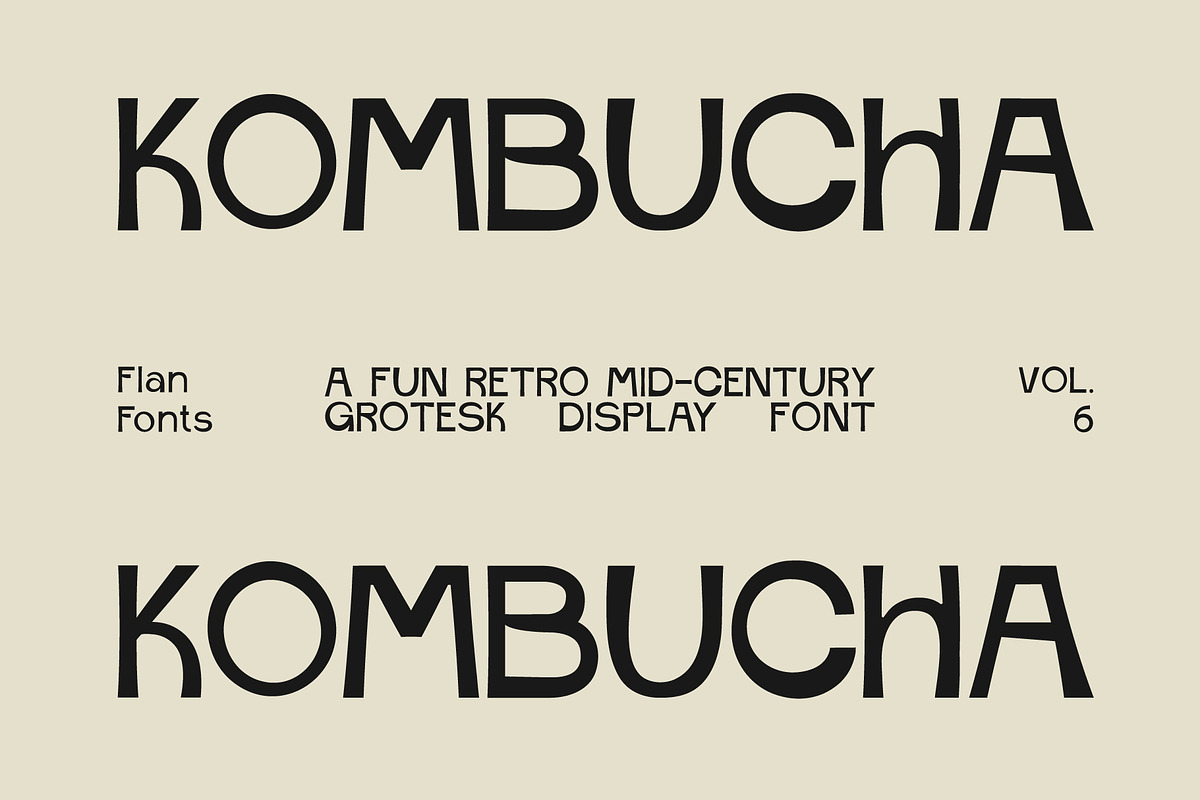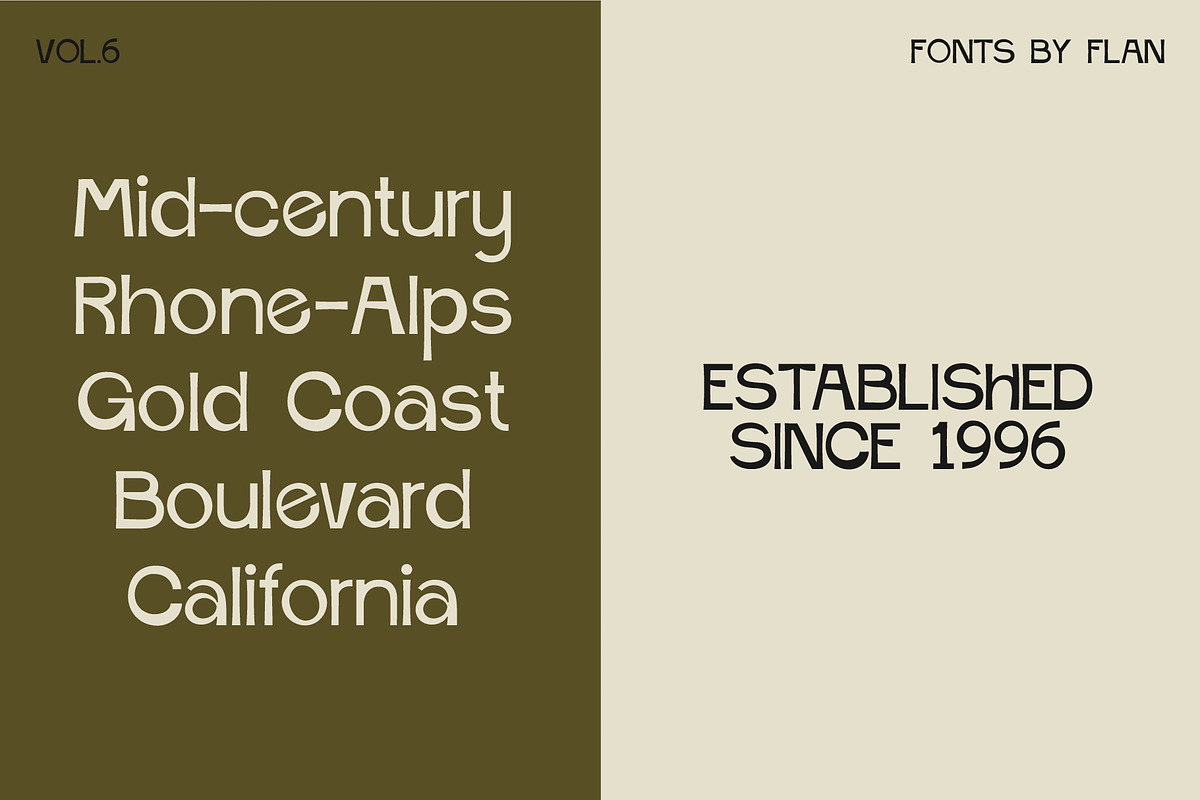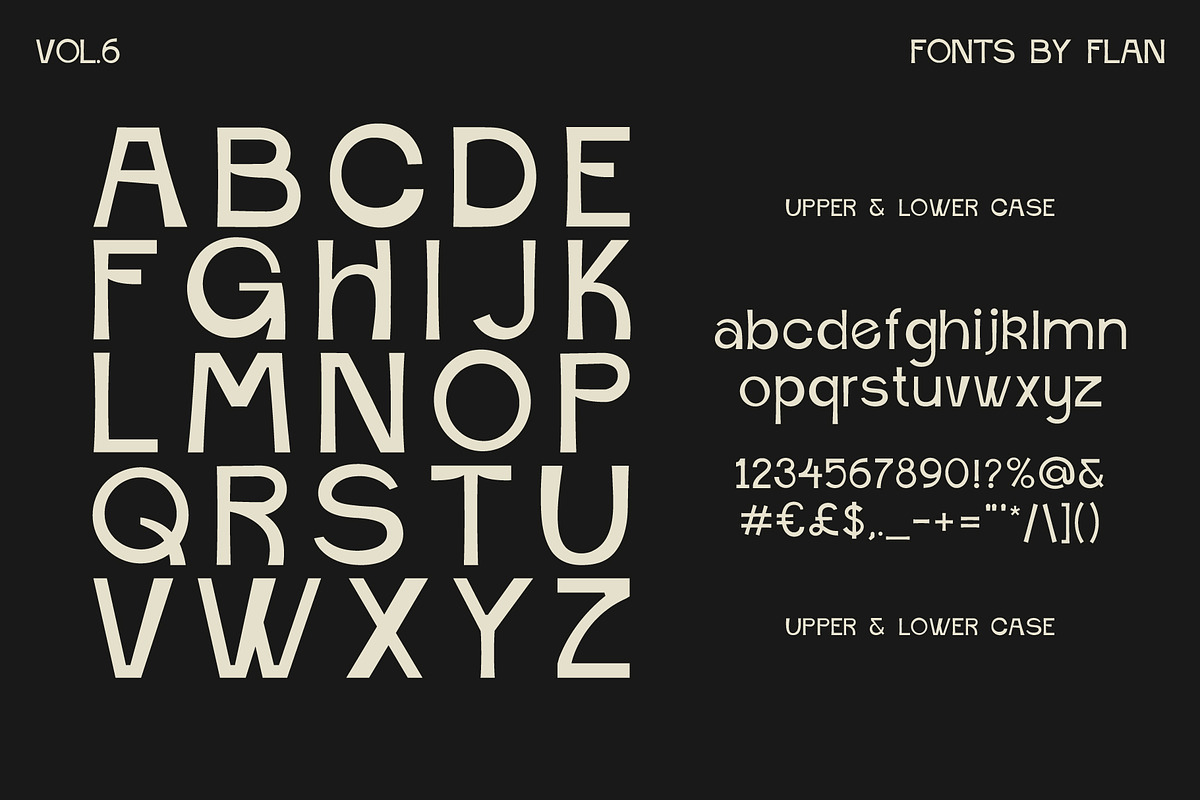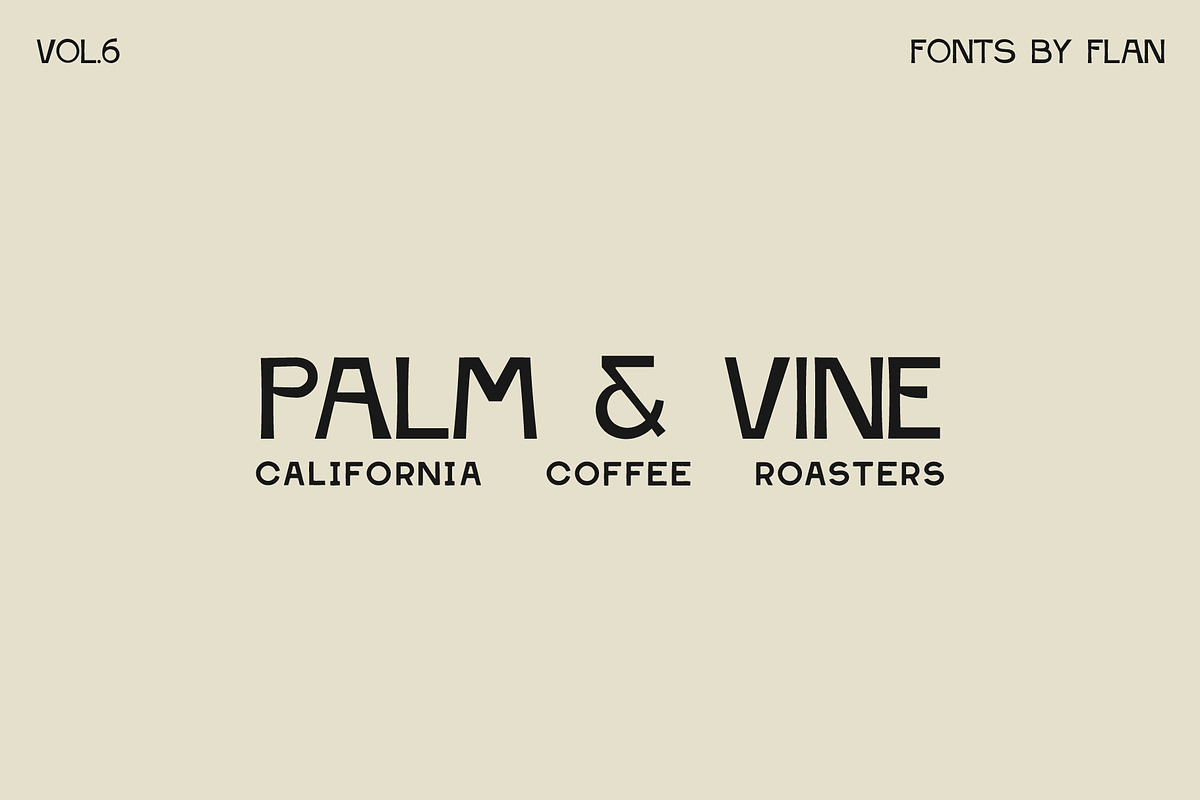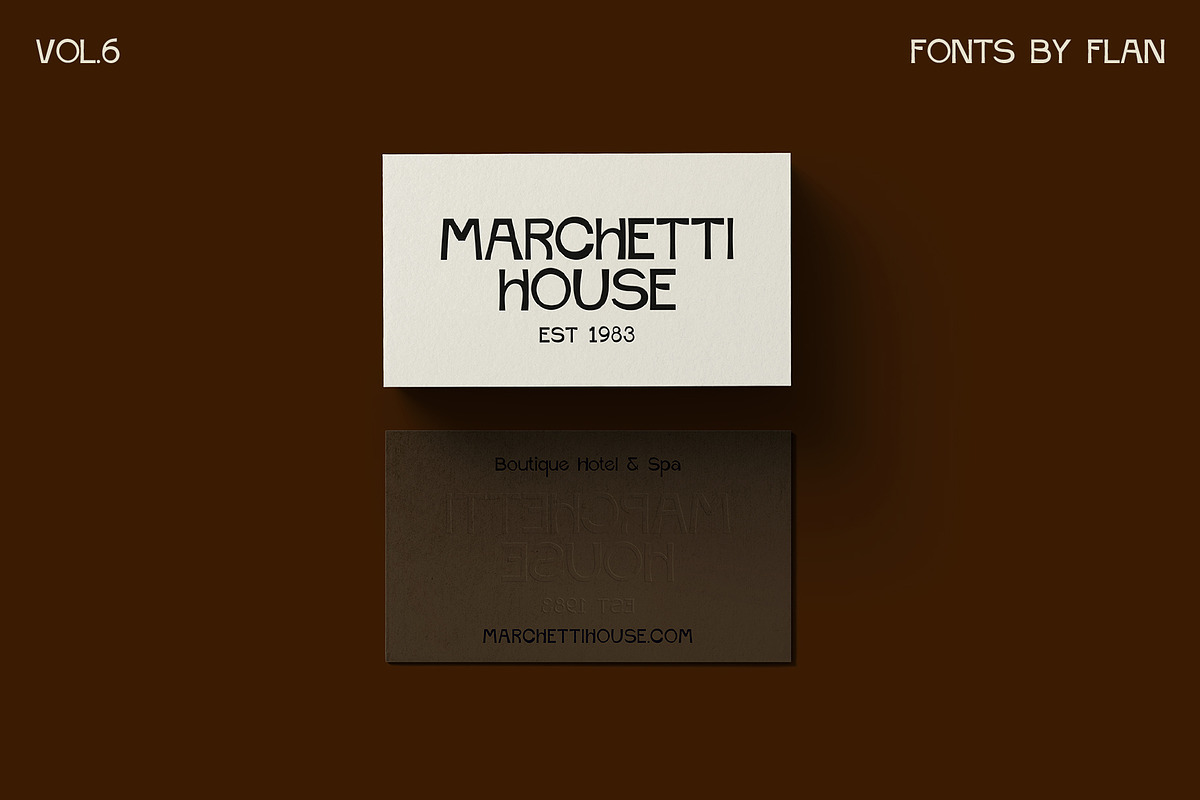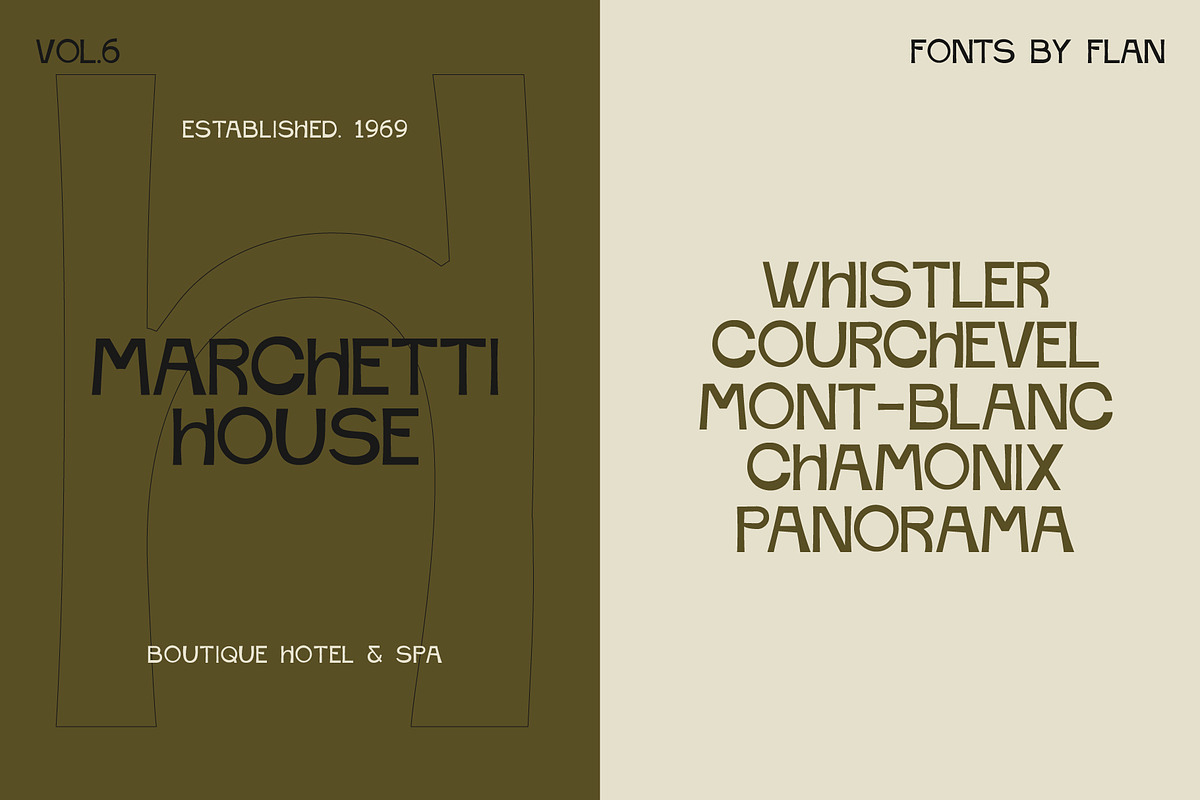
Kombucha | Mid-Century Display Font
Kombucha is a bold, geometric sans serif font with an art deco and mid-century modern feel. Rounded terminals and circular letterforms give it a retro, 1950s-inspired character with a custom, hand-crafted edge — the kind of typeface you'd expect to find painted on a vintage motel sign or stamped across an old soda label.
The font includes 26 uppercase letterforms, 26 lowercase letterforms, a full numerical set, and 24 symbols and punctuation marks — giving you flexibility for headlines, logos, pricing, and body copy alike. The rounded bones and confident weight keep it legible even at large display sizes.
Kombucha is perfect for wine and beverage packaging, food and drink branding, hotel and hospitality signage, restaurant menu design, and retro logo design. It also suits editorial headlines, product labels, and any project that calls for a vintage, nostalgic feel with a premium, considered finish rather than an off-the-shelf look.